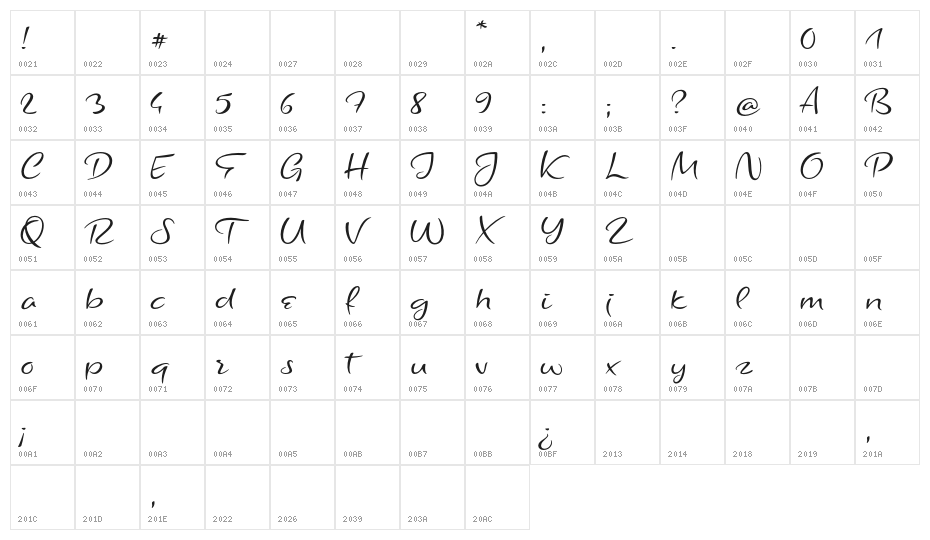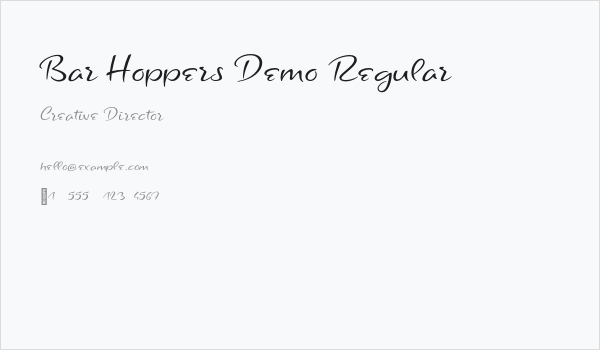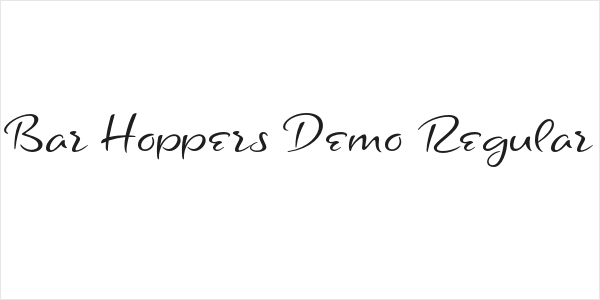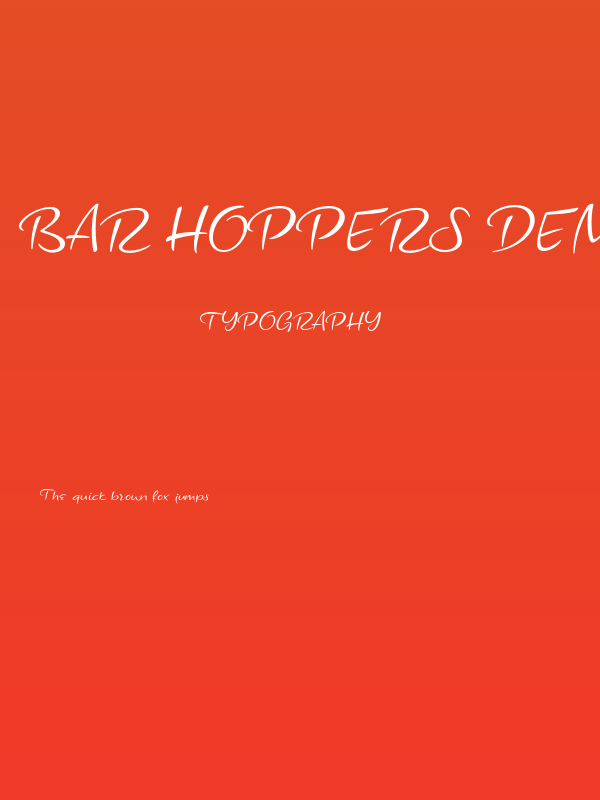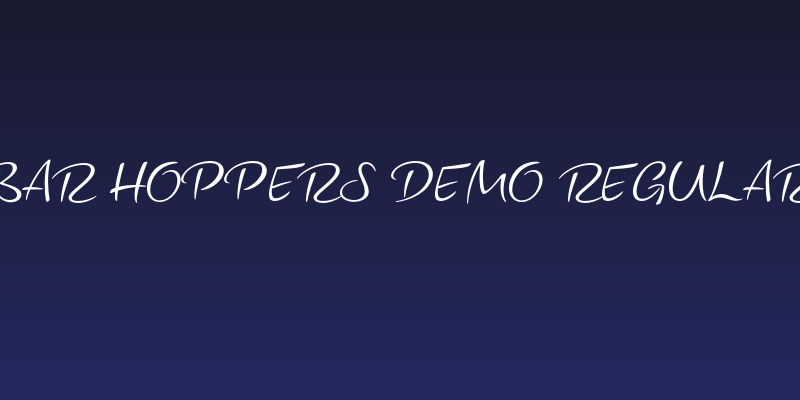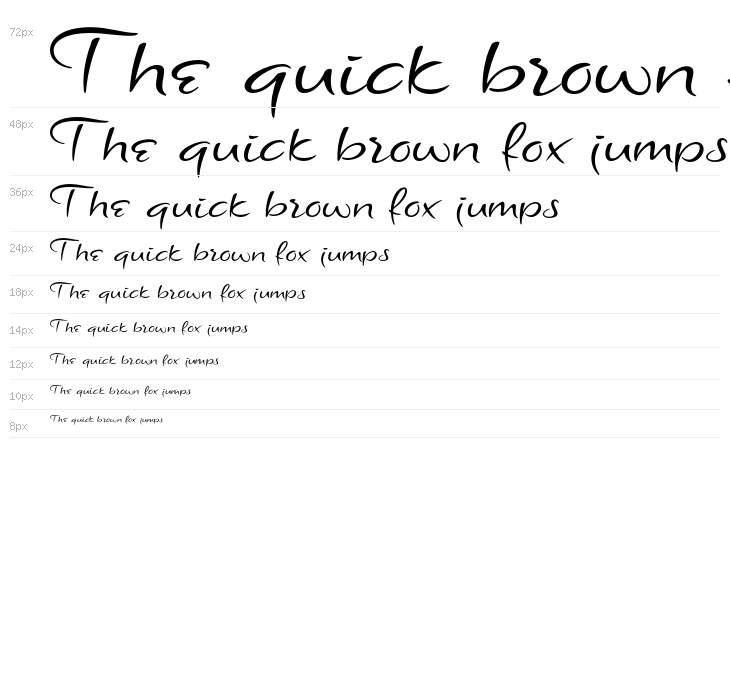
Bar Hoppers Demo Regular Font
Bar Hoppers Demo Regular Description
This font features a lively and flowing script style, characterized by its elegant and cursive letterforms. The uppercase letters exhibit a graceful, sweeping motion, while the lowercase letters maintain a consistent fluidity, creating a harmonious balance. The numerals are designed with the same cursive flair, ensuring uniformity across all characters. The font's overall appearance is dynamic and expressive, making it suitable for projects that require a touch of sophistication and creativity. The special characters are integrated seamlessly, maintaining the font's cohesive style.
| Overall Style | Elegant, Expressive |
| Proposed Projects | Ideal for wedding invitations, greeting cards, branding, and elegant logos. |